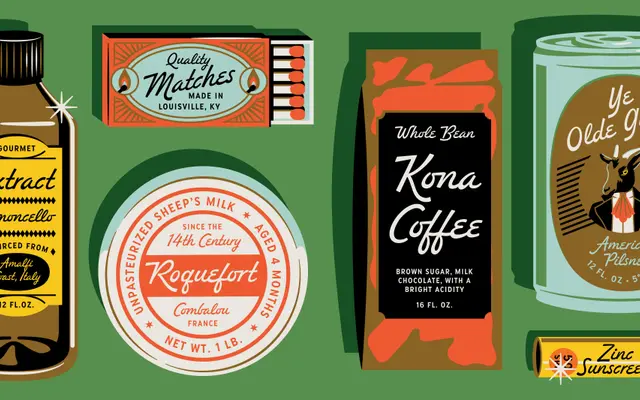
Redondo Ave
Fort Foundry · Amy Hood
A casual, organic script in two weights with extensive alternate characters and broad Latin language support.
Designed by Amy Hood, Redondo Ave is a display script with 560 glyphs and a relaxed, hand-drawn quality tempered by enough polish for finished design work. Two weights, Regular and Bold, are offered alongside a generous set of stylistic alternates that allow for a more spontaneous, varied texture in setting. Its broad Latin coverage makes it practical across many European and indigenous language contexts.
Described explicitly as a casual, organic script with alternate characters; the page categorises it under Script and notes its display personality.